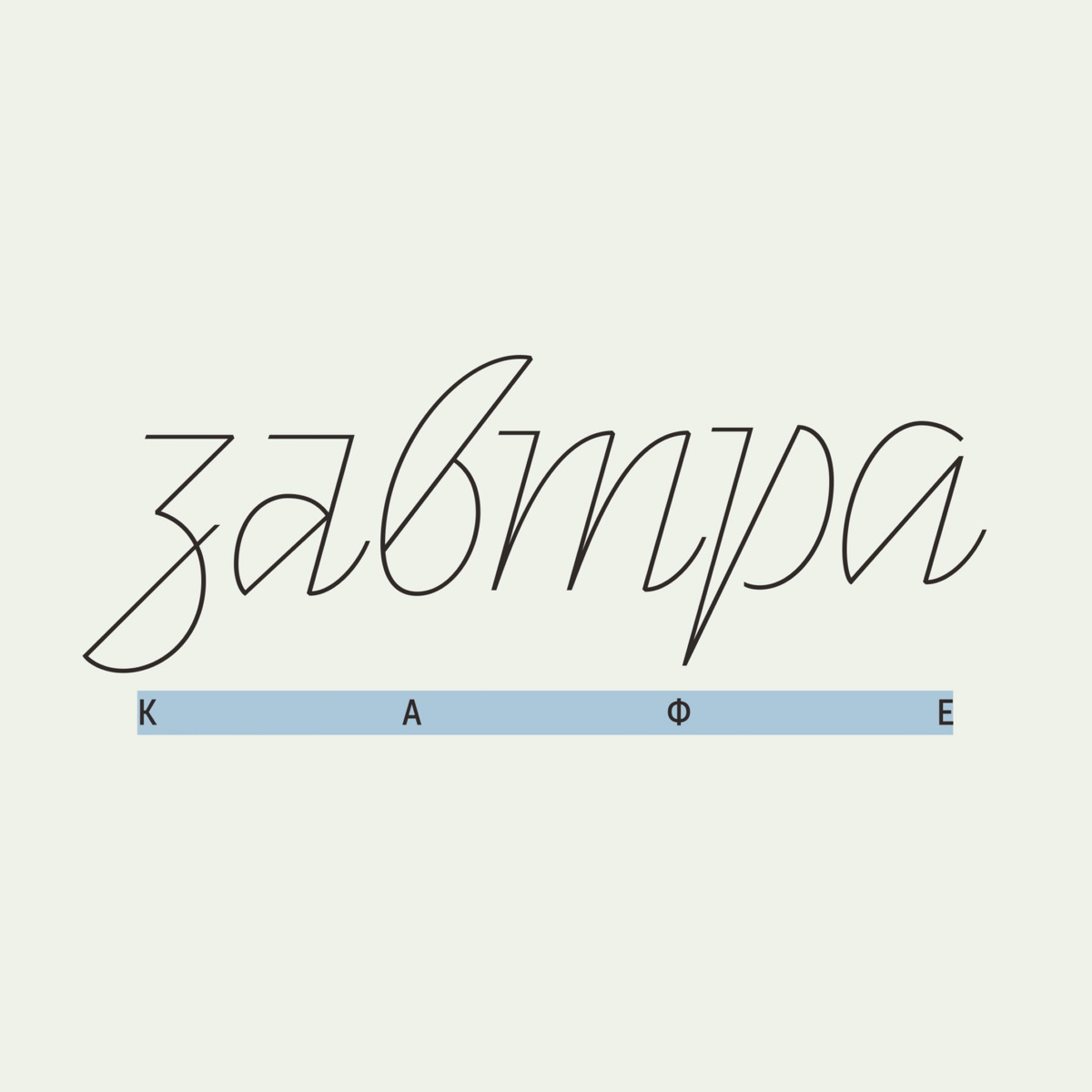
Curbe by Оlga Pankova is used in the visual identity of Zavtra, a St. Petersburg coffee shop that serves breakfast all day. The project was designed by Leon Basargin.
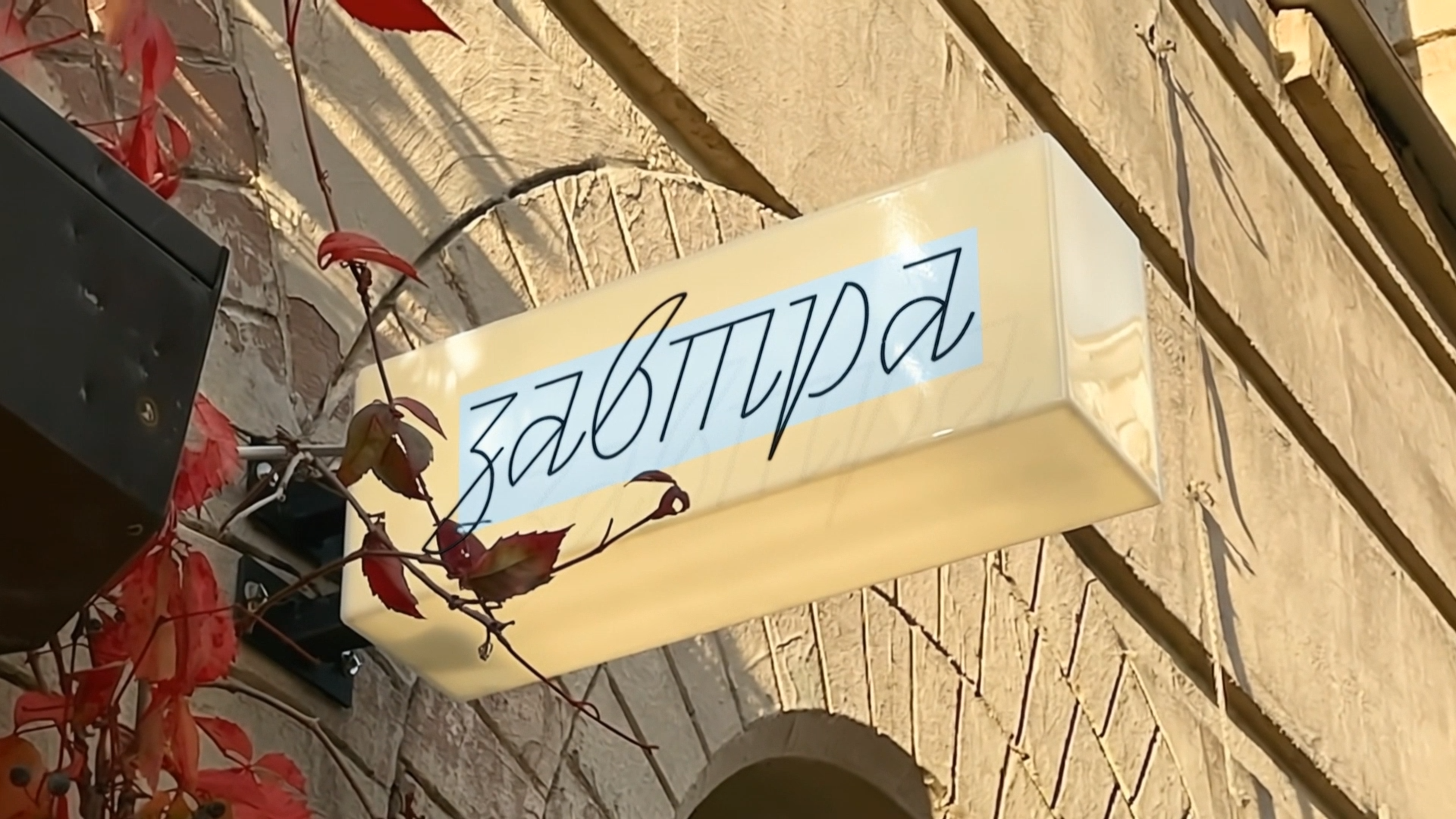
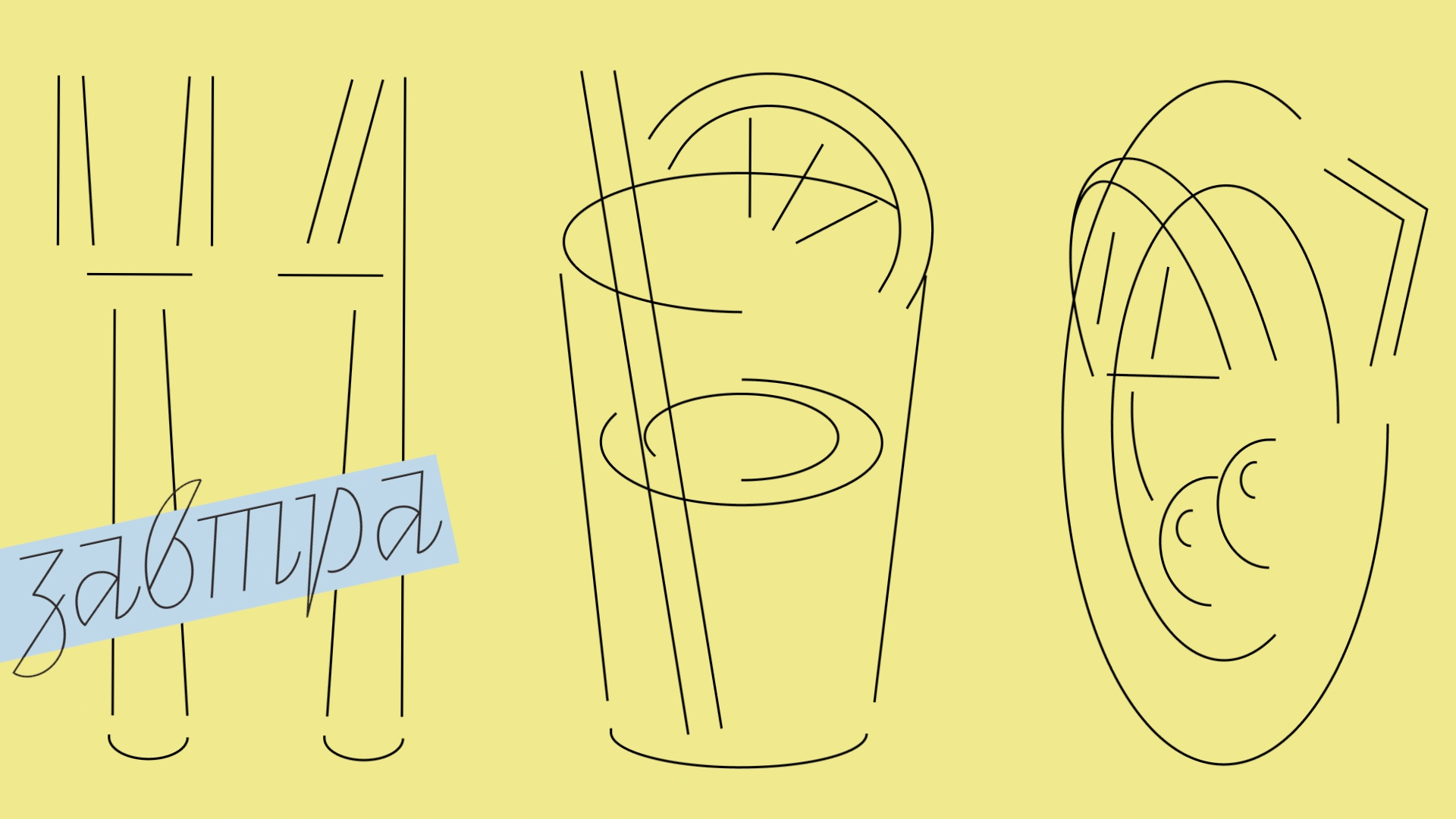
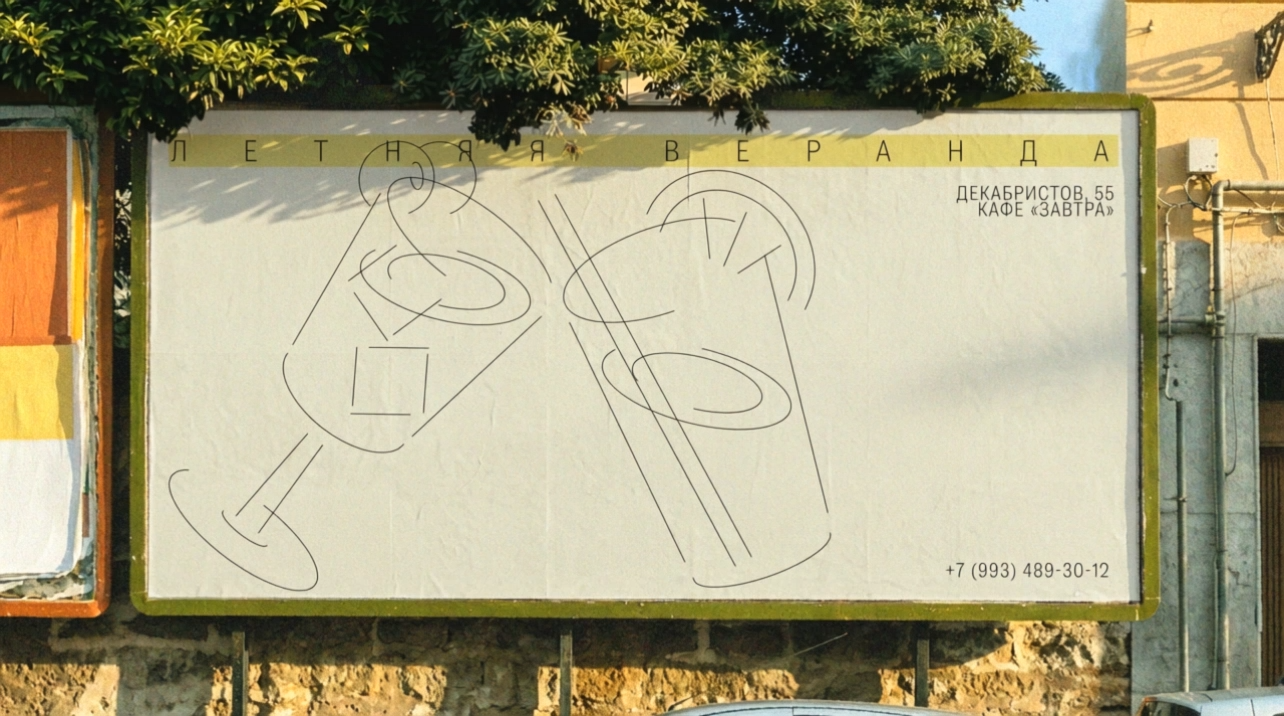
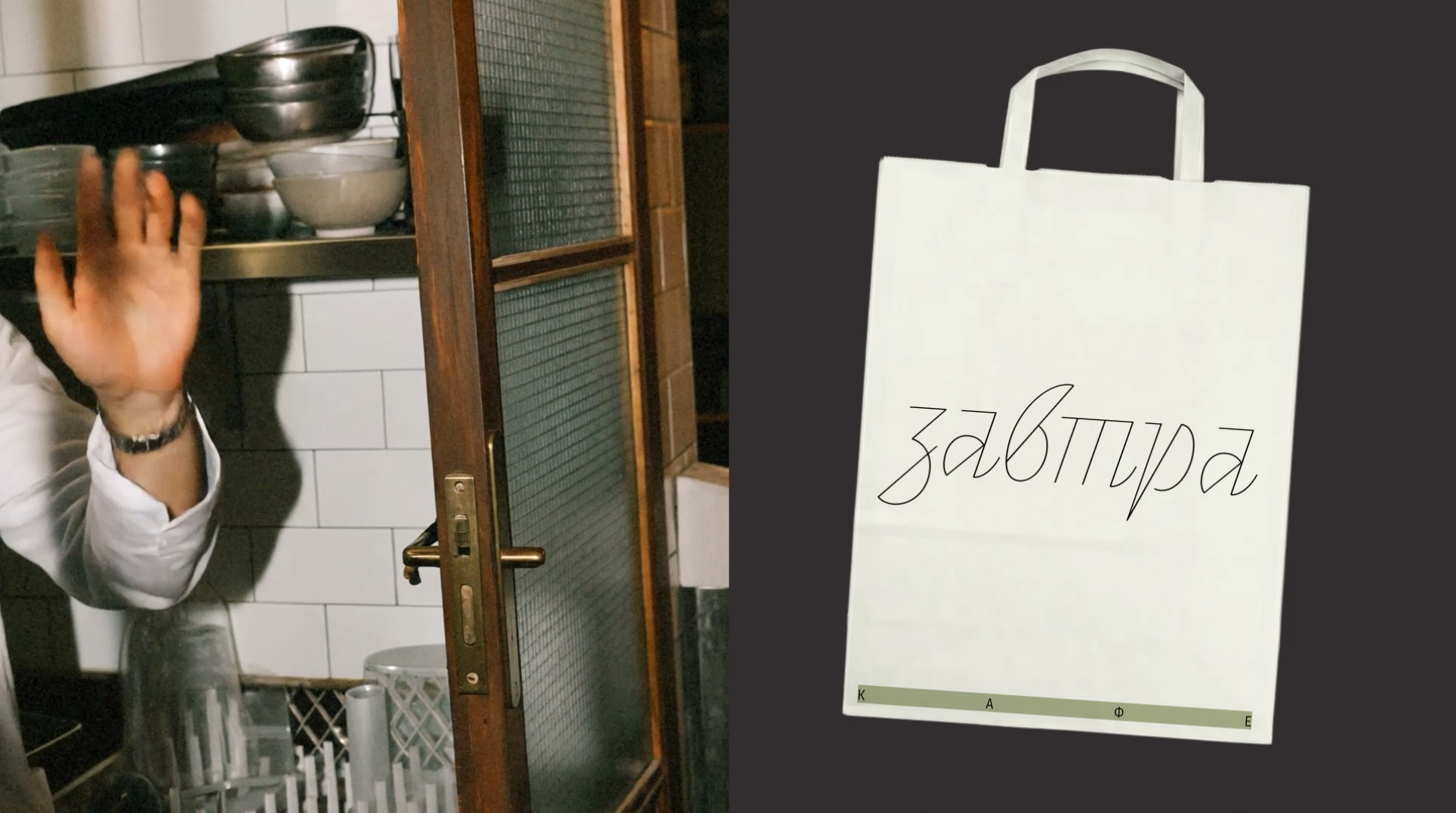
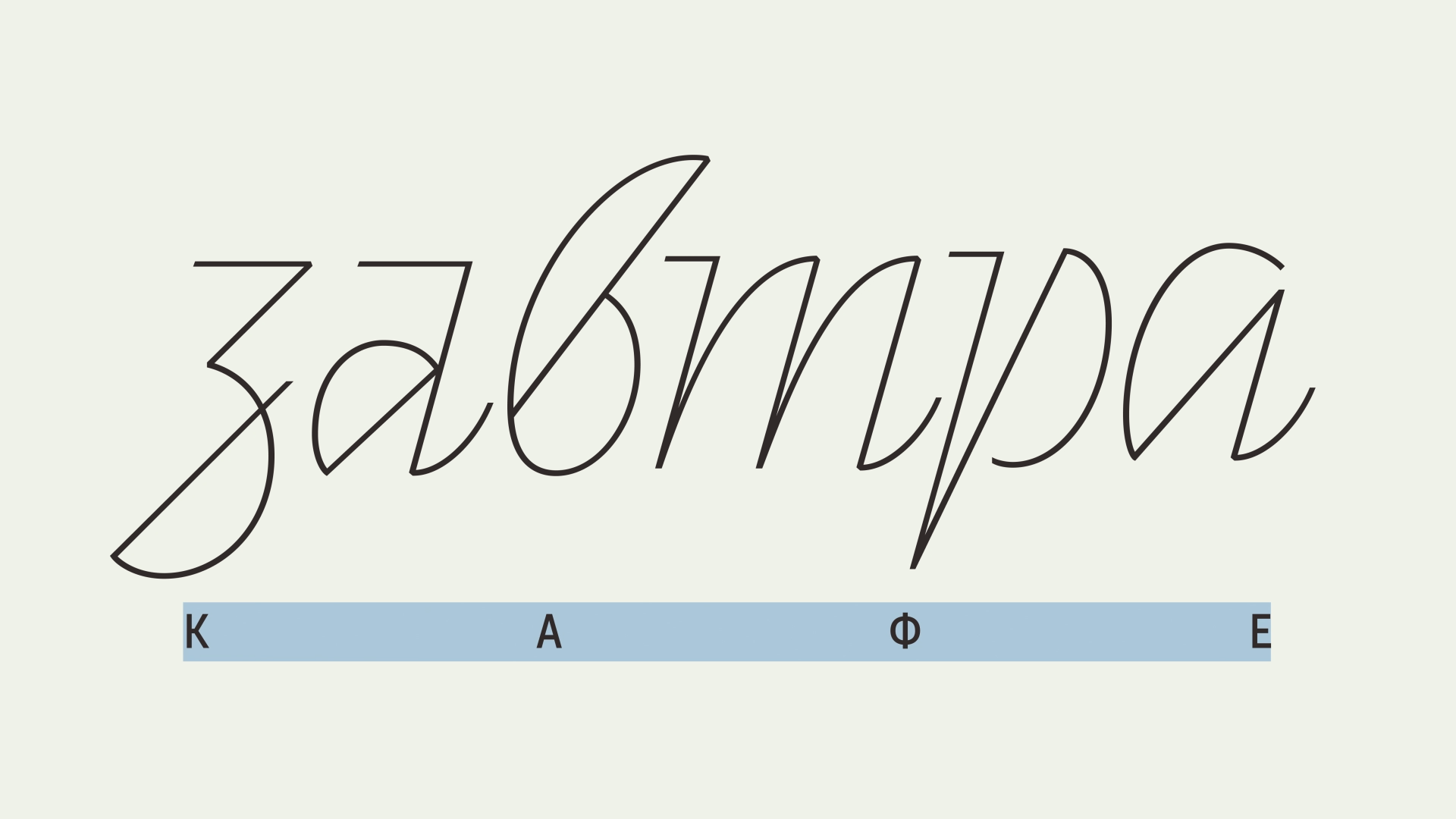
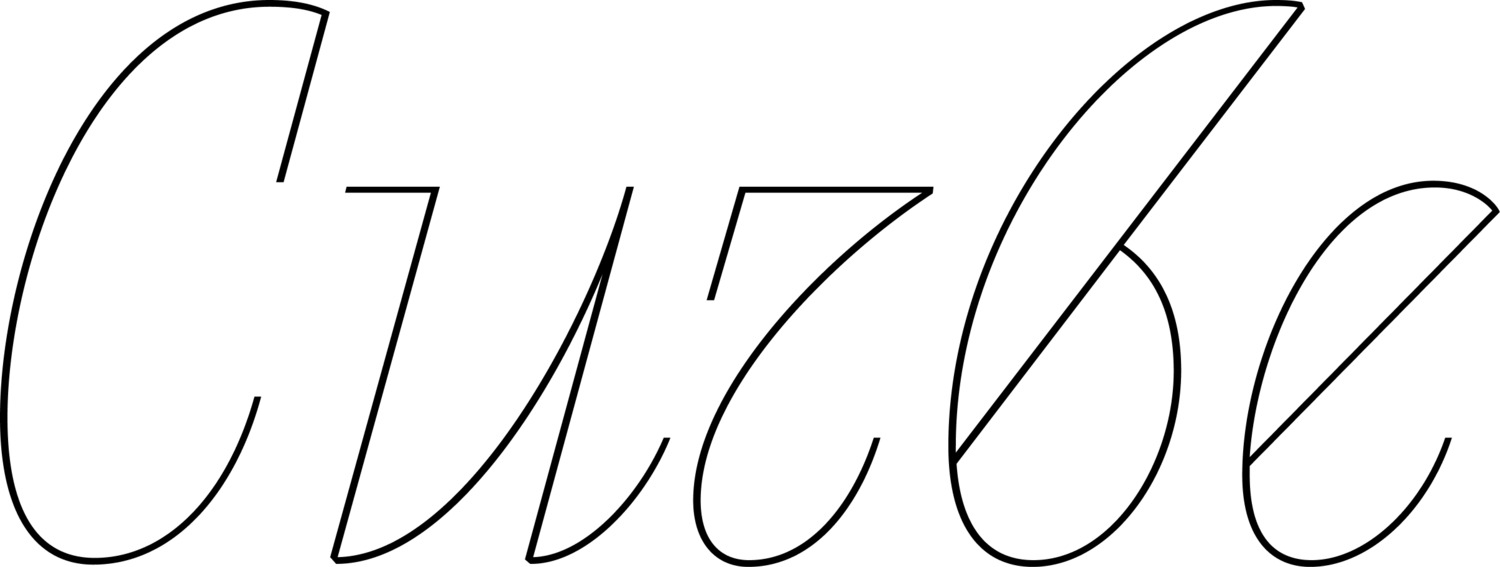
Curbe is a display face inspired by the Soviet 1960s. Technically, there are no historical references; it’s rather about vibe and style — this contemporary script font is active, angular, dynamic. Many glyphs come with alternates.